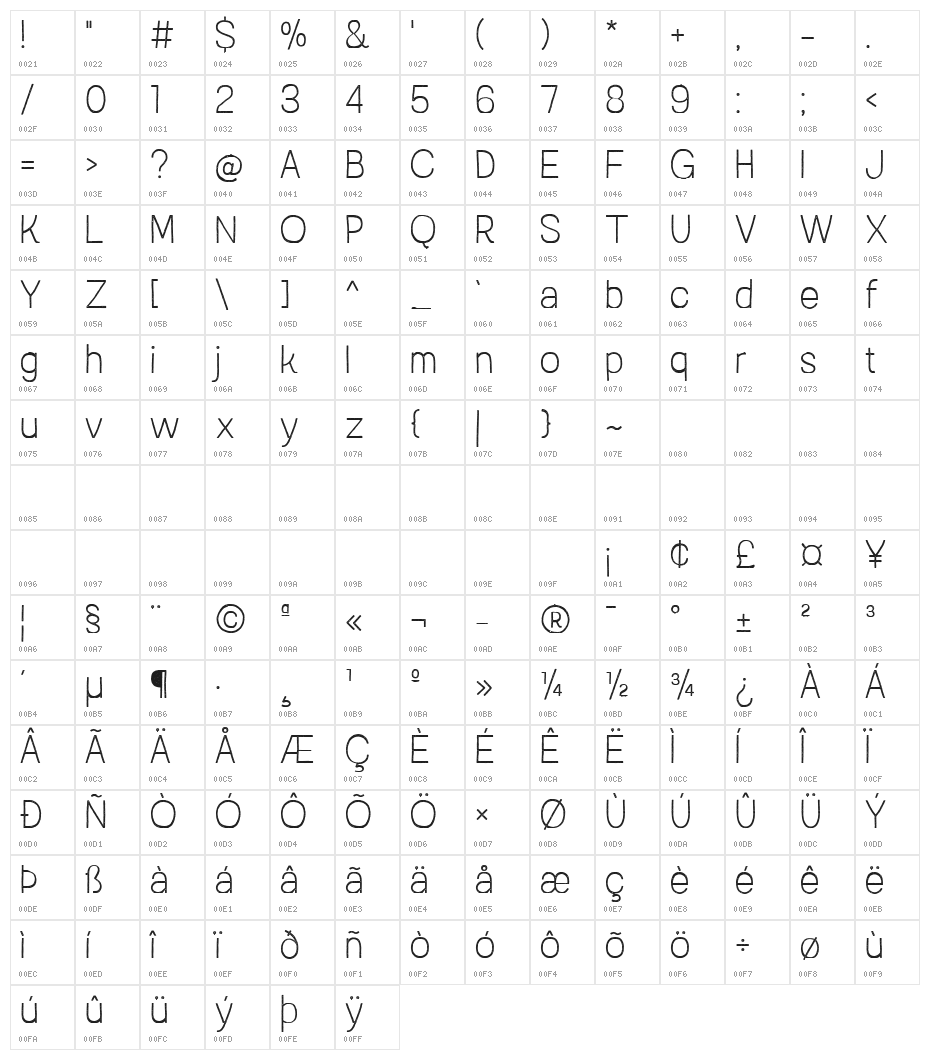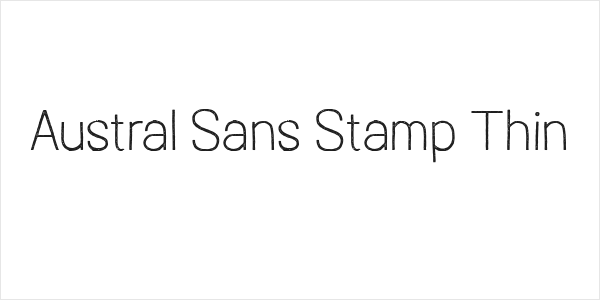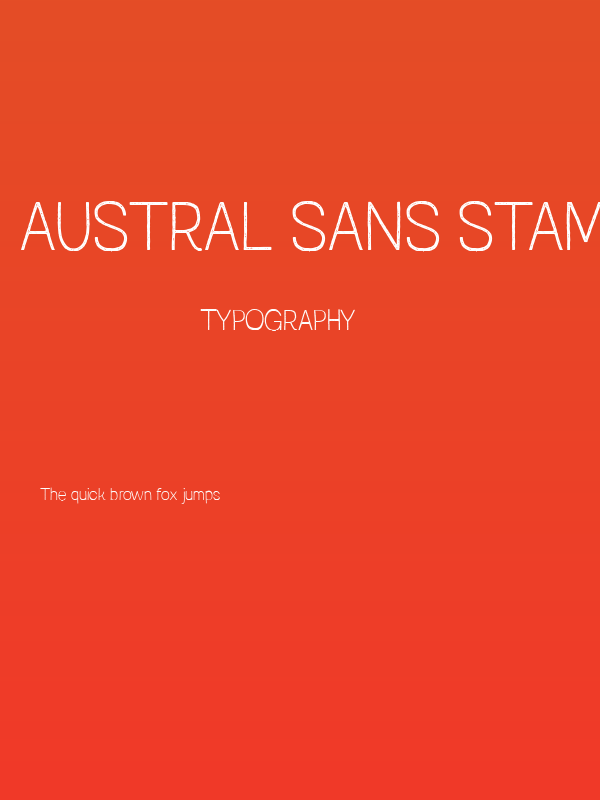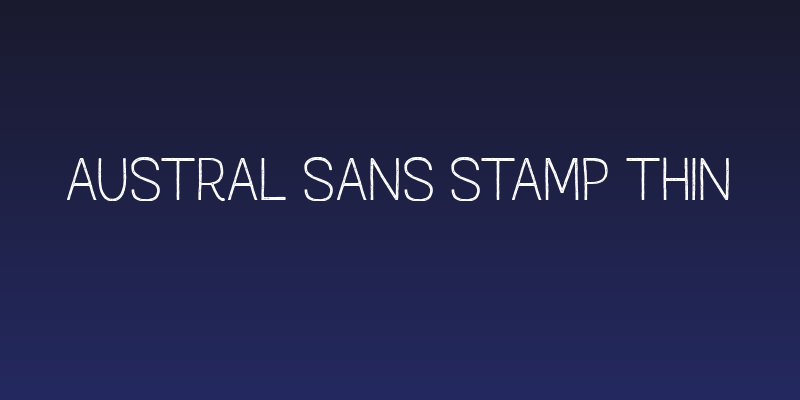
Austral Sans Stamp Thin Font
Austral Sans Stamp Thin Description
This font features a clean and minimalist design with a subtle textured effect that gives it a stamped appearance. The characters are uniformly thin, contributing to a light and airy feel. The uppercase and lowercase letters maintain a consistent height and width, providing a harmonious look. The numerals and special characters are designed with the same attention to detail, ensuring readability and style. The overall aesthetic is modern and versatile, making it suitable for a variety of design projects. Its simplicity and elegance make it ideal for conveying a sense of understated sophistication.
| Use Case | Headlines, Logos, Editorial Design |
| Proposed Projects | Ideal for branding, packaging, editorial design, and digital media where a modern and clean look is desired. |